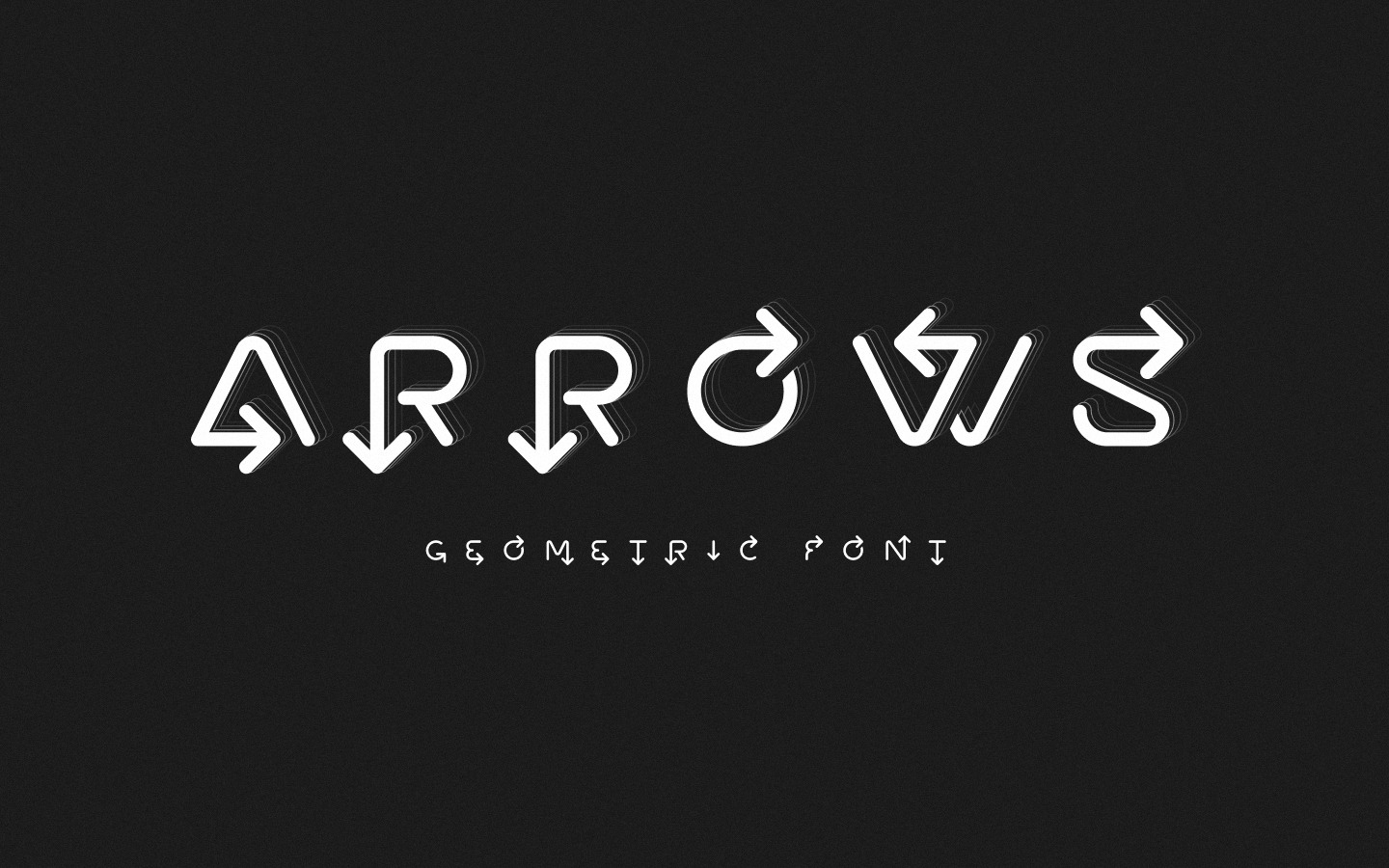
Original font style arrows pointers. Arrows line font modern, wide, moderately thin. Decorates headlines in your minimal design or complements your brand identity and logo.